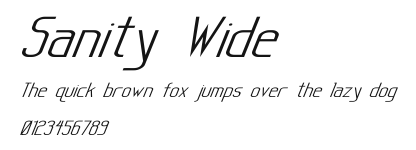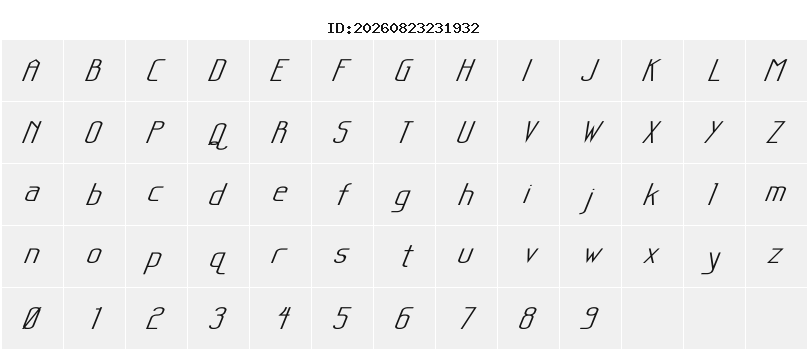
Sanity Wide Preview
• Font Name: Sanity Wide
• Font ID: Sanity Wide Italic
• Full Font Name: Sanity Wide Italic
• PostScript Name: SanityWideItalic
About Sanity Wide.ttf
Sanity Wide.ttf is a modern, elegant sans-serif font designed for ultimate readability and visual harmony. Perfect for branding, headlines, web design, and print materials.